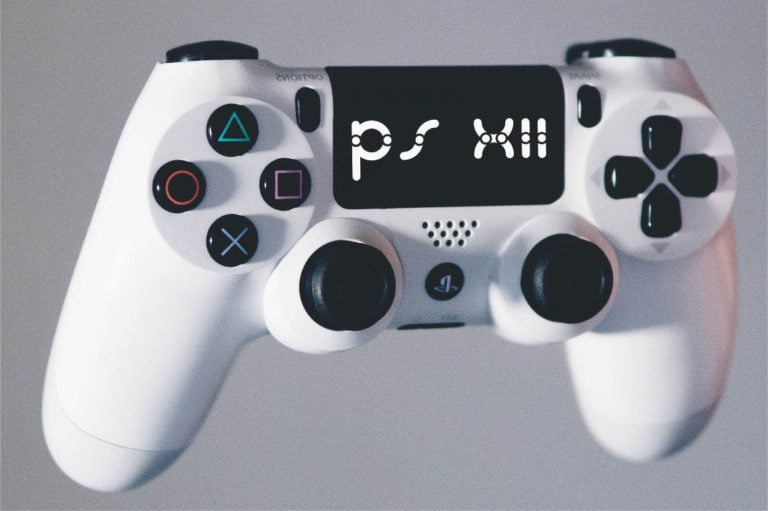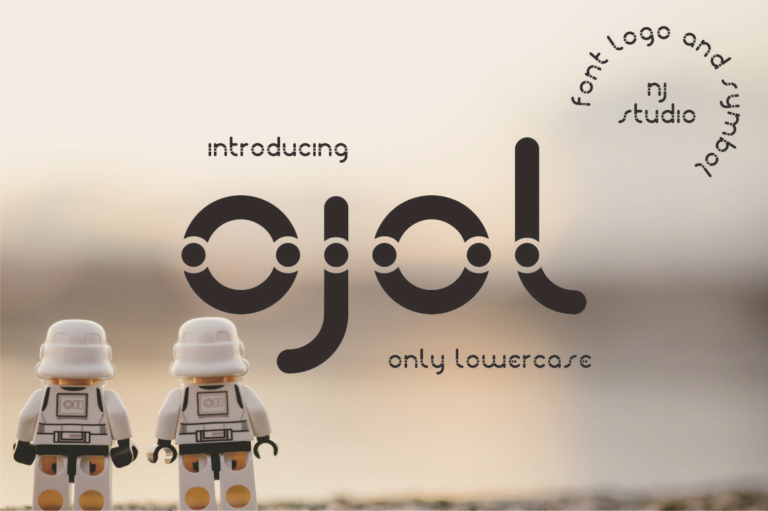
Ojol Font
Ojol is a bold and playful font that captures the energy and excitement of urban life. Its unique letterforms and dynamic curves evoke the feeling of movement and speed. Perfect for creating eye-catching headlines, logos, posters, and other graphic designs, Ojol is a versatile font that can be used to add a touch of modern flair to your projects.